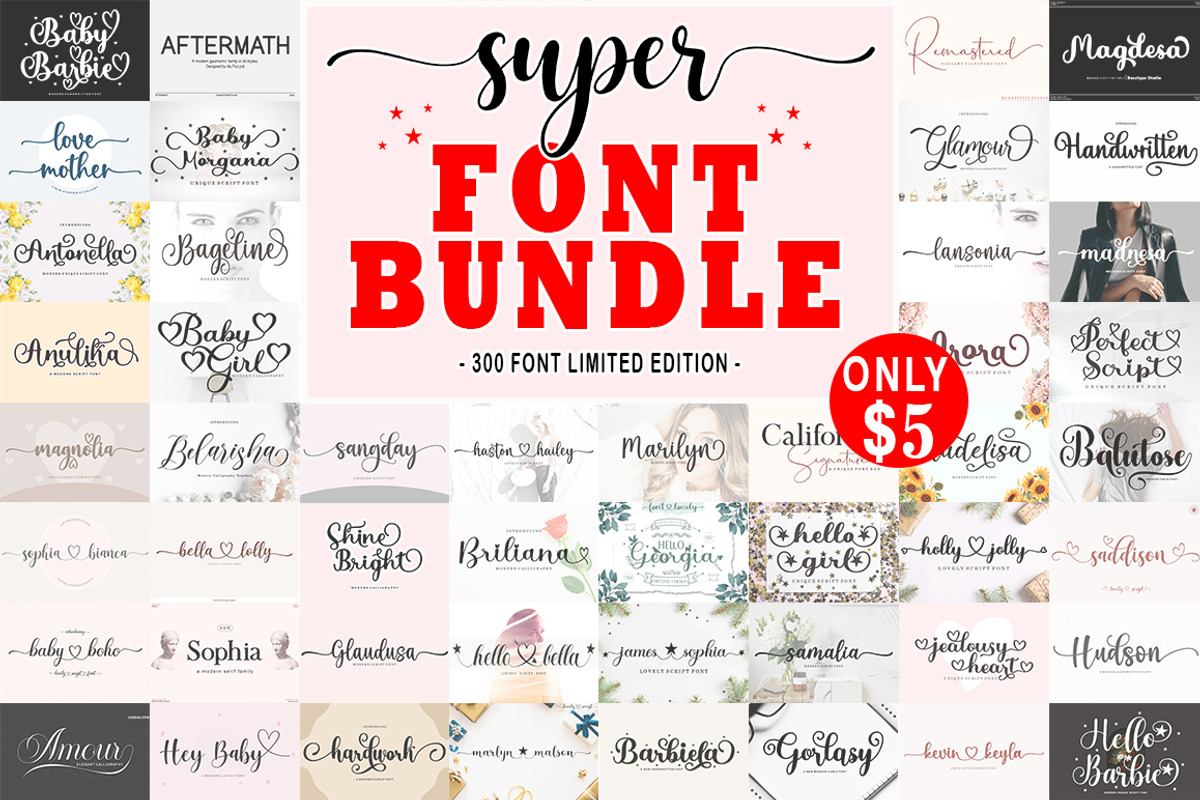
Super Big – Collection Font Bundle Free Download is a massive and versatile set of premium-quality fonts designed to cover every creative need in one powerful package. Featuring a wide variety of styles—script, serif, sans-serif, display, decorative, and more—Super Big is ideal for branding, logos, social media, packaging, invitations, posters, and everything in between.
Each typeface in the Super Big – Collection Font Bundle Free Download has been professionally crafted to work across diverse design themes, from elegant and romantic to bold and modern. Whether you’re building a brand, designing a campaign, or creating content across multiple niches, this bundle gives you unlimited creative flexibility.